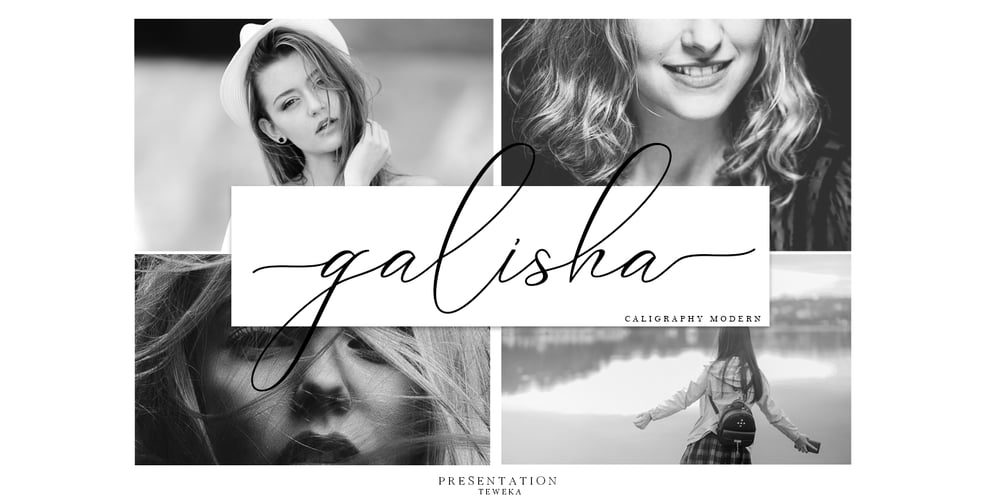
Galisha Font Family was designed by Tuanku Muhammad Iqbal and published by Teweka. Galisha contains 1 styles and family package options. Indulge yourself with the luxurious Galisha script. This font is harmonious and is suitable for high-end branding, logo design, product packaging, design, invitations and more.